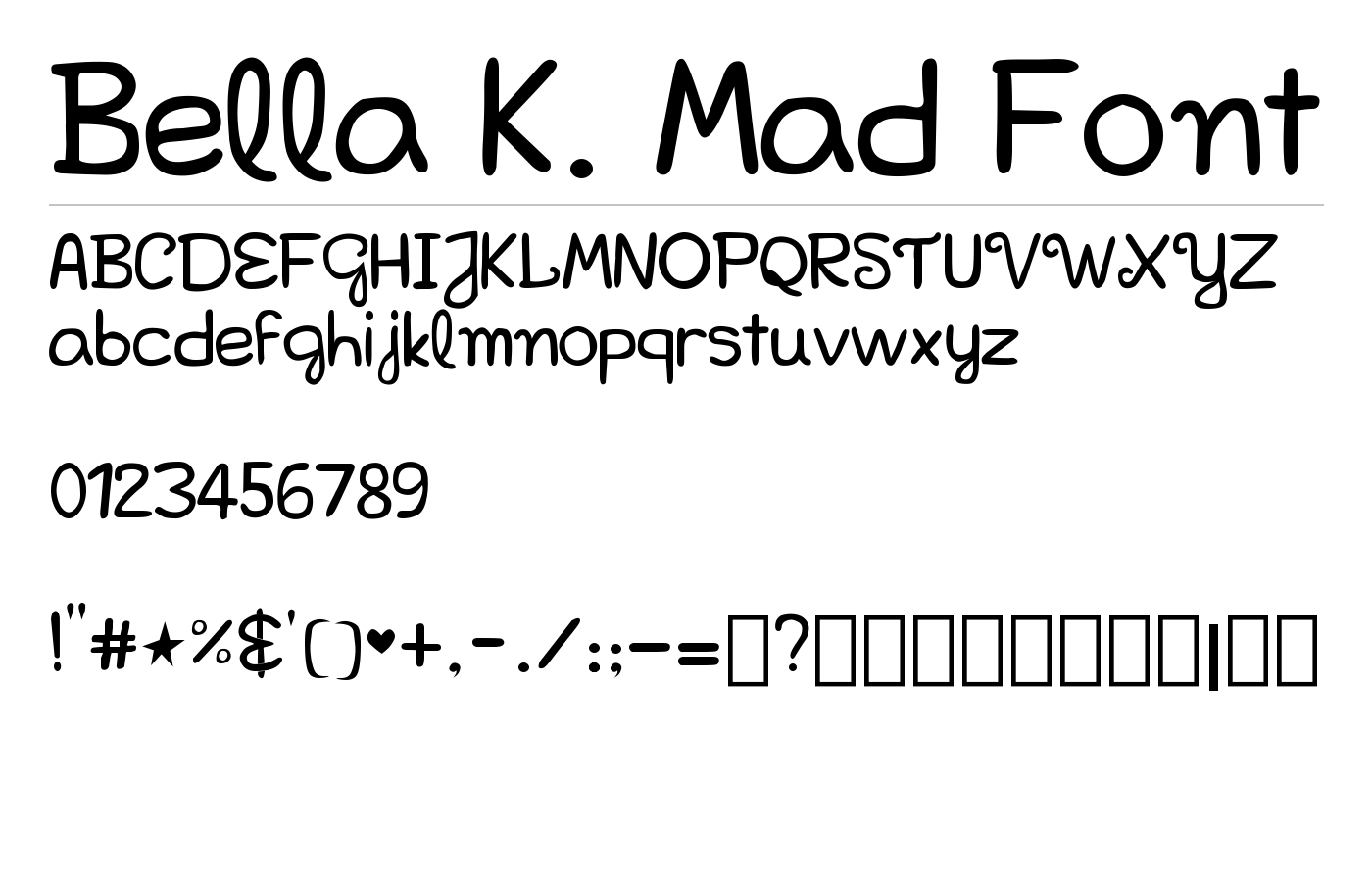
Bella K. Mad is a playful, handwritten sans serif font with a casual and friendly feel. Its upright, moderately tall letterforms feature lively curves and uneven strokes that give it a warm, approachable personality, ideal for informal and creative designs. This font works well in children's books, greeting cards, and fun branding where a personal, whimsical touch is desired.
Bella K. Mad Font
About Bella K. Mad Font